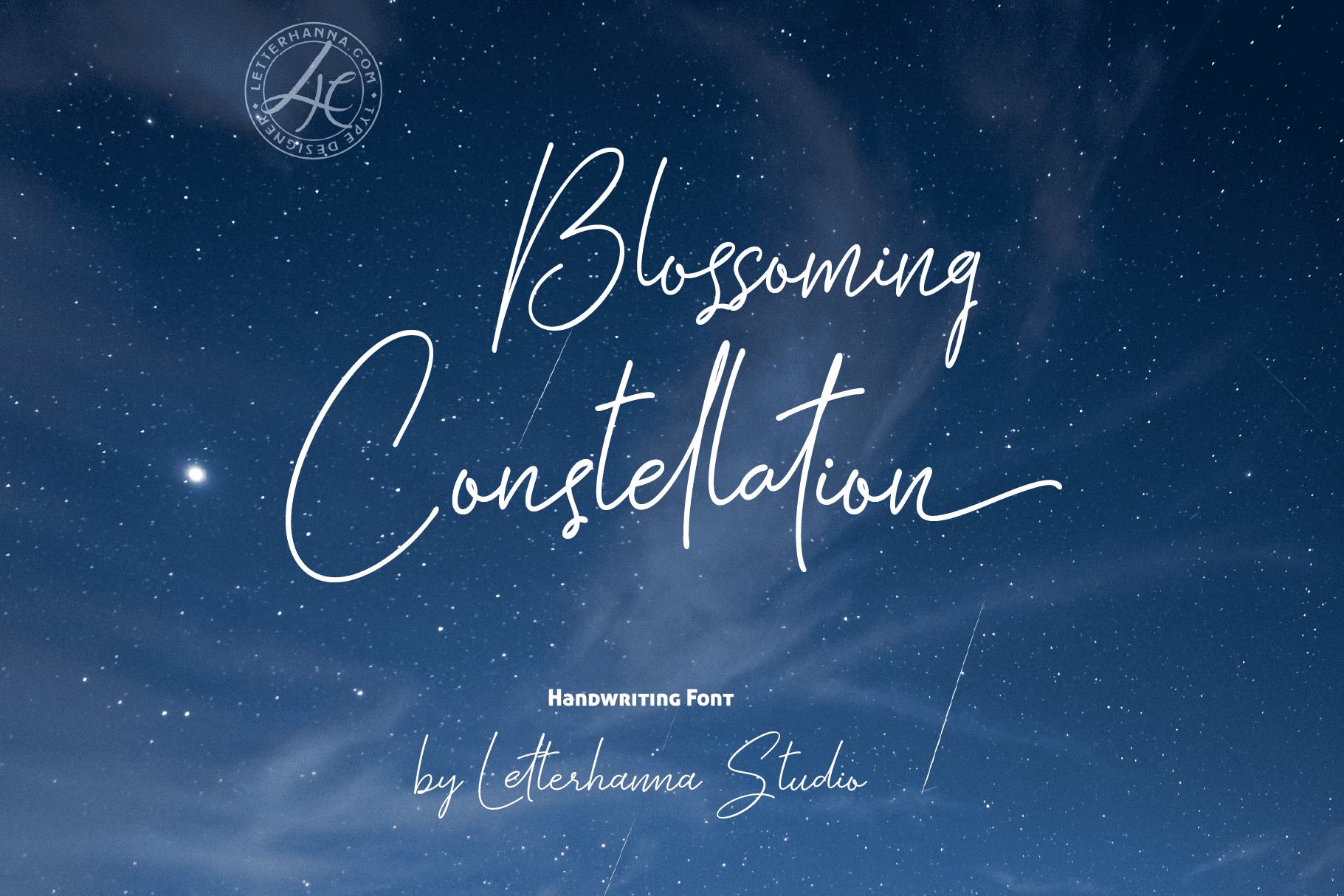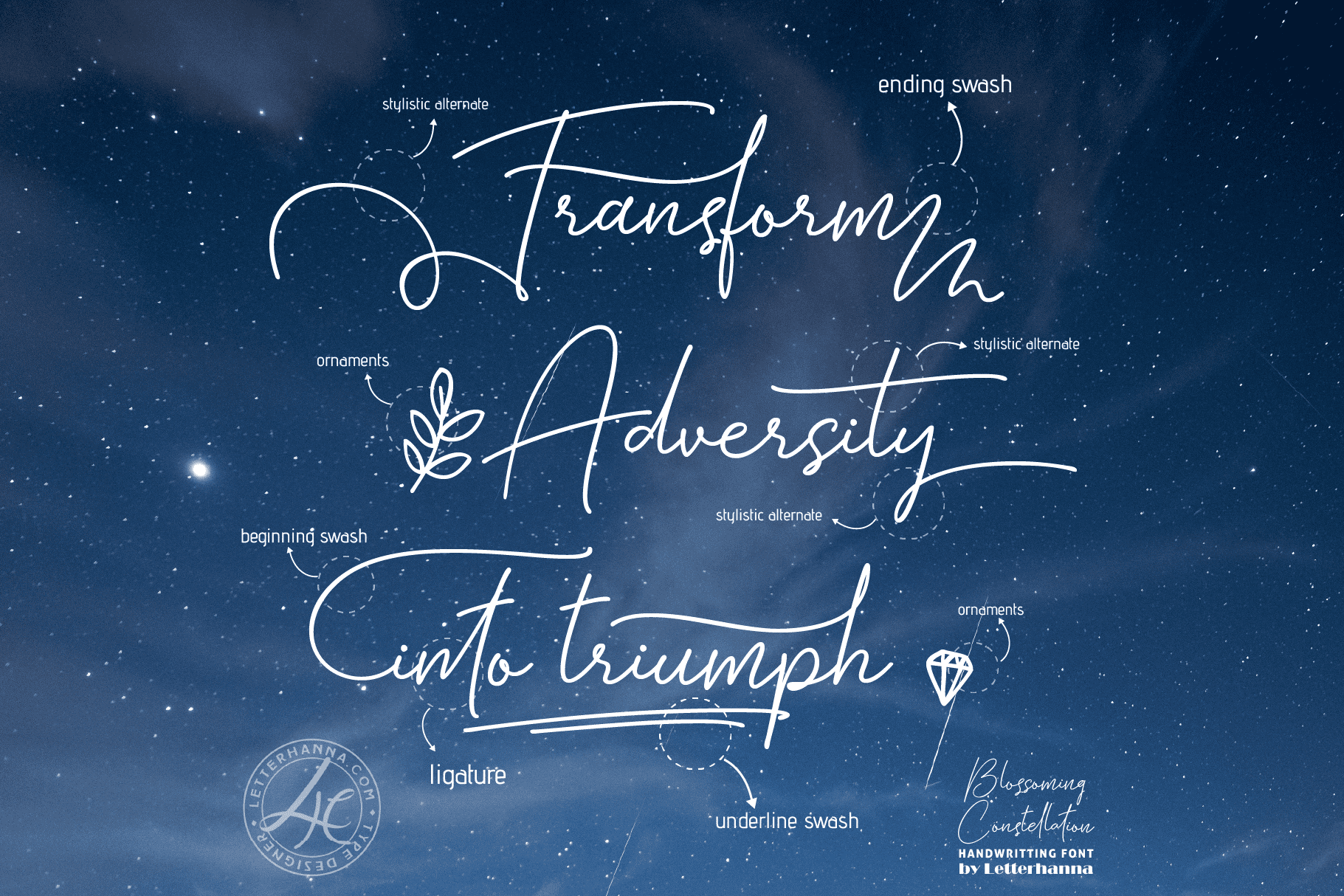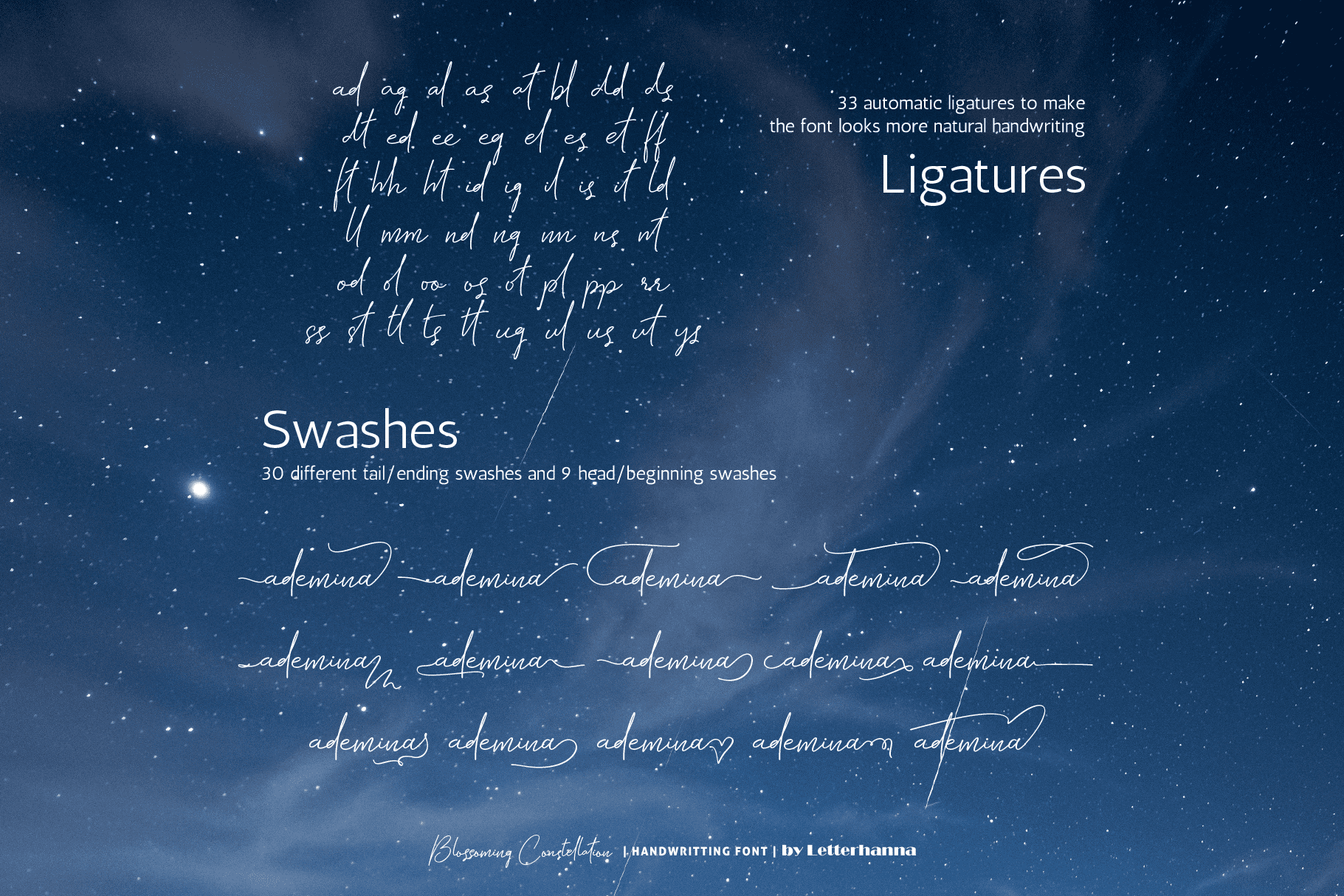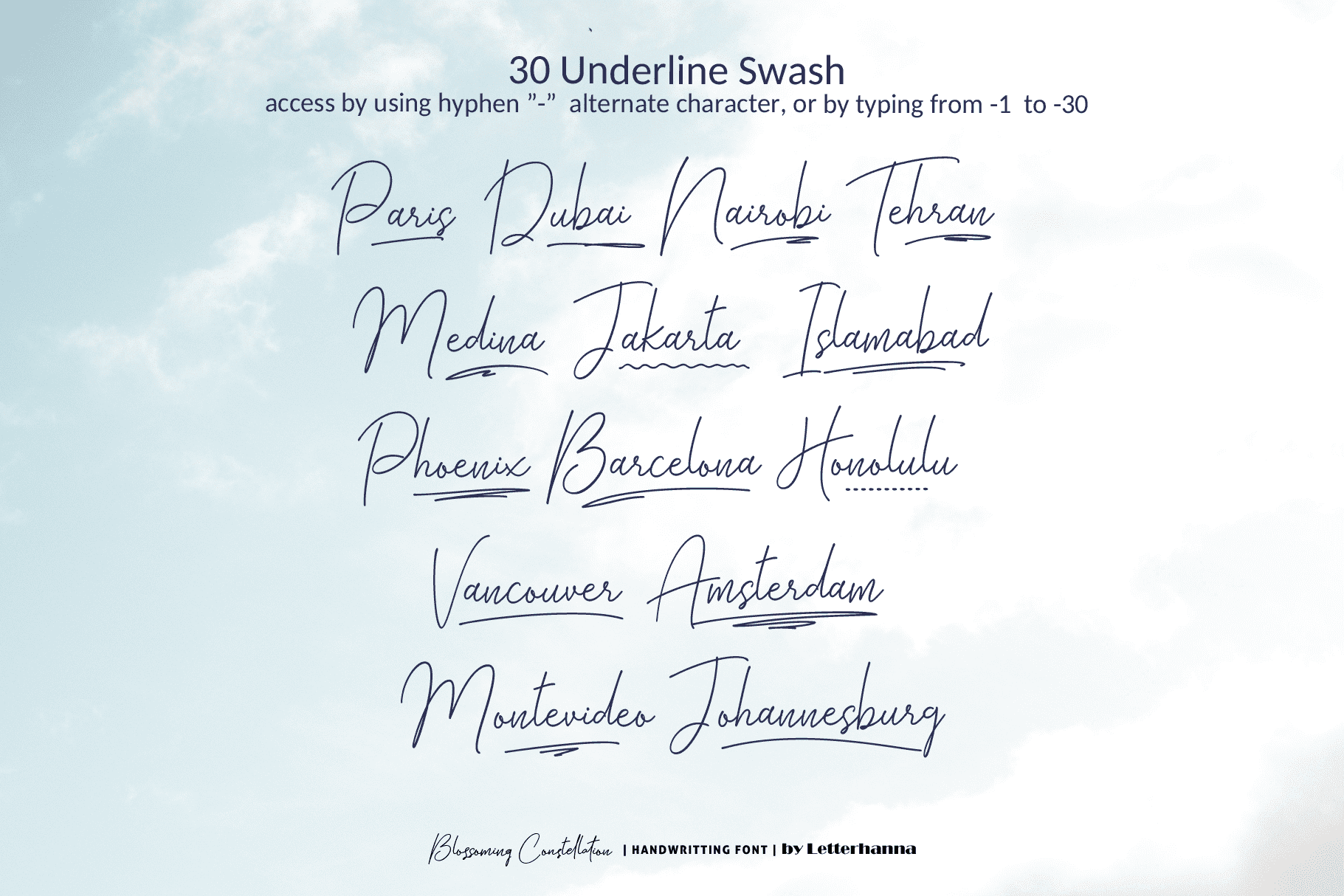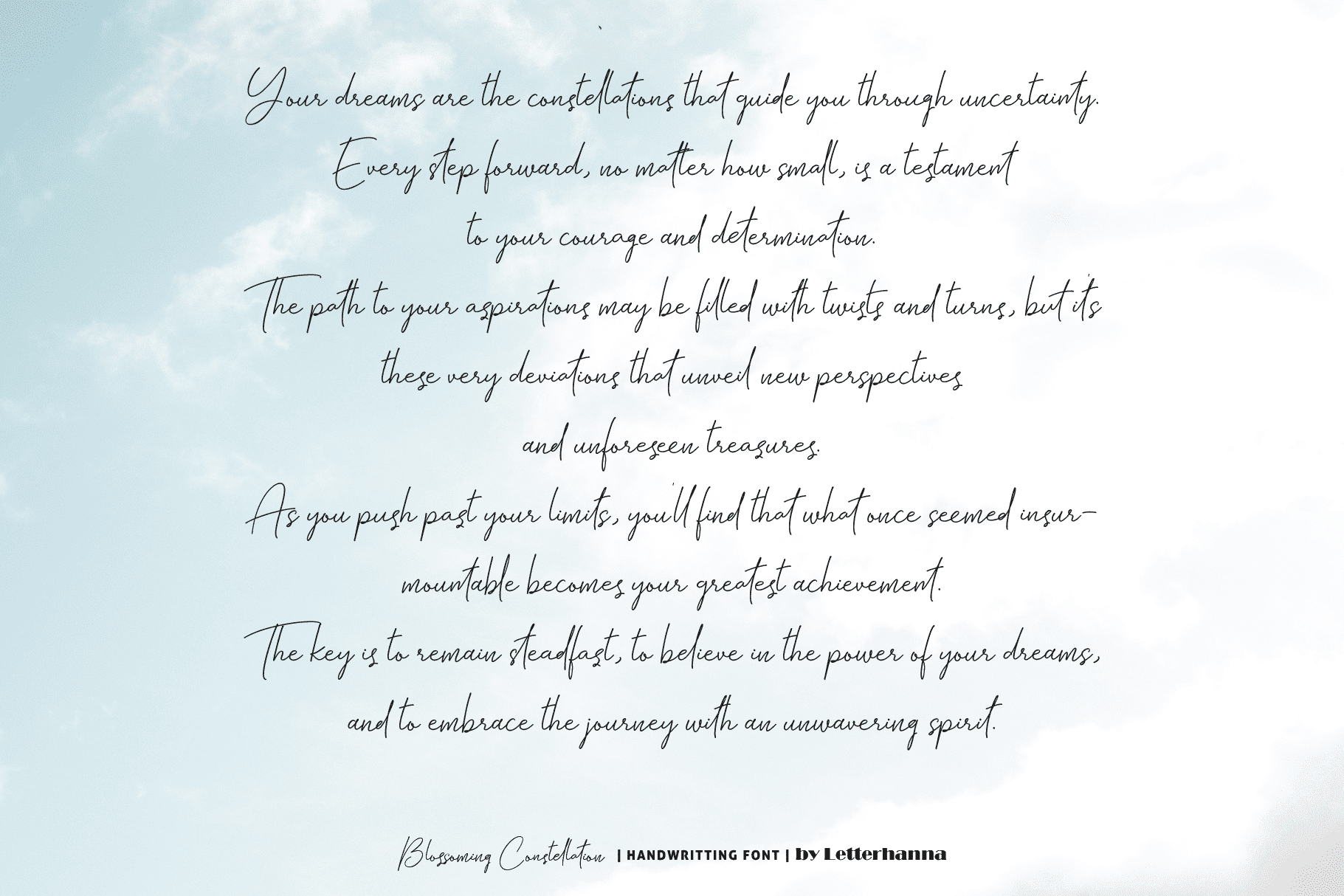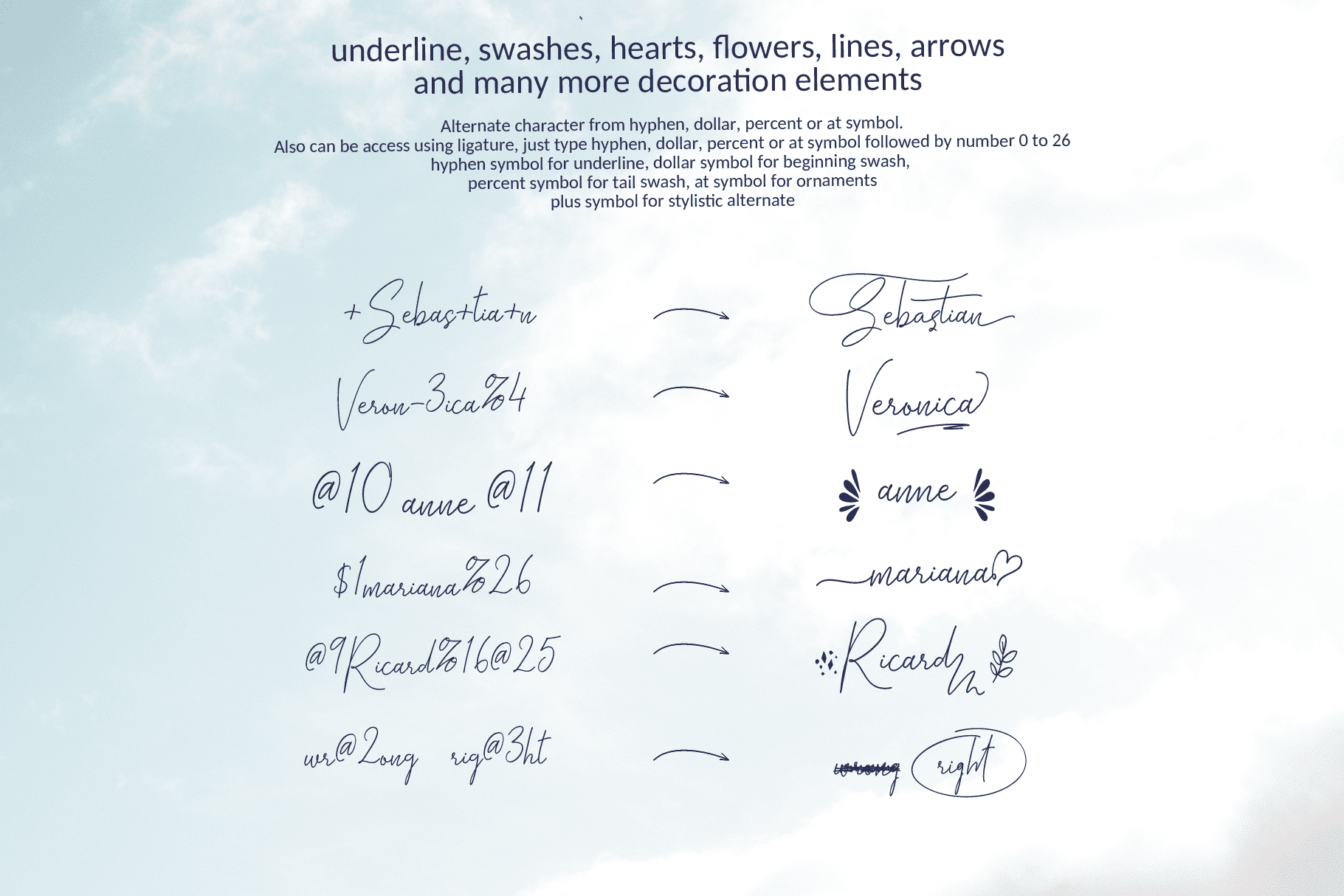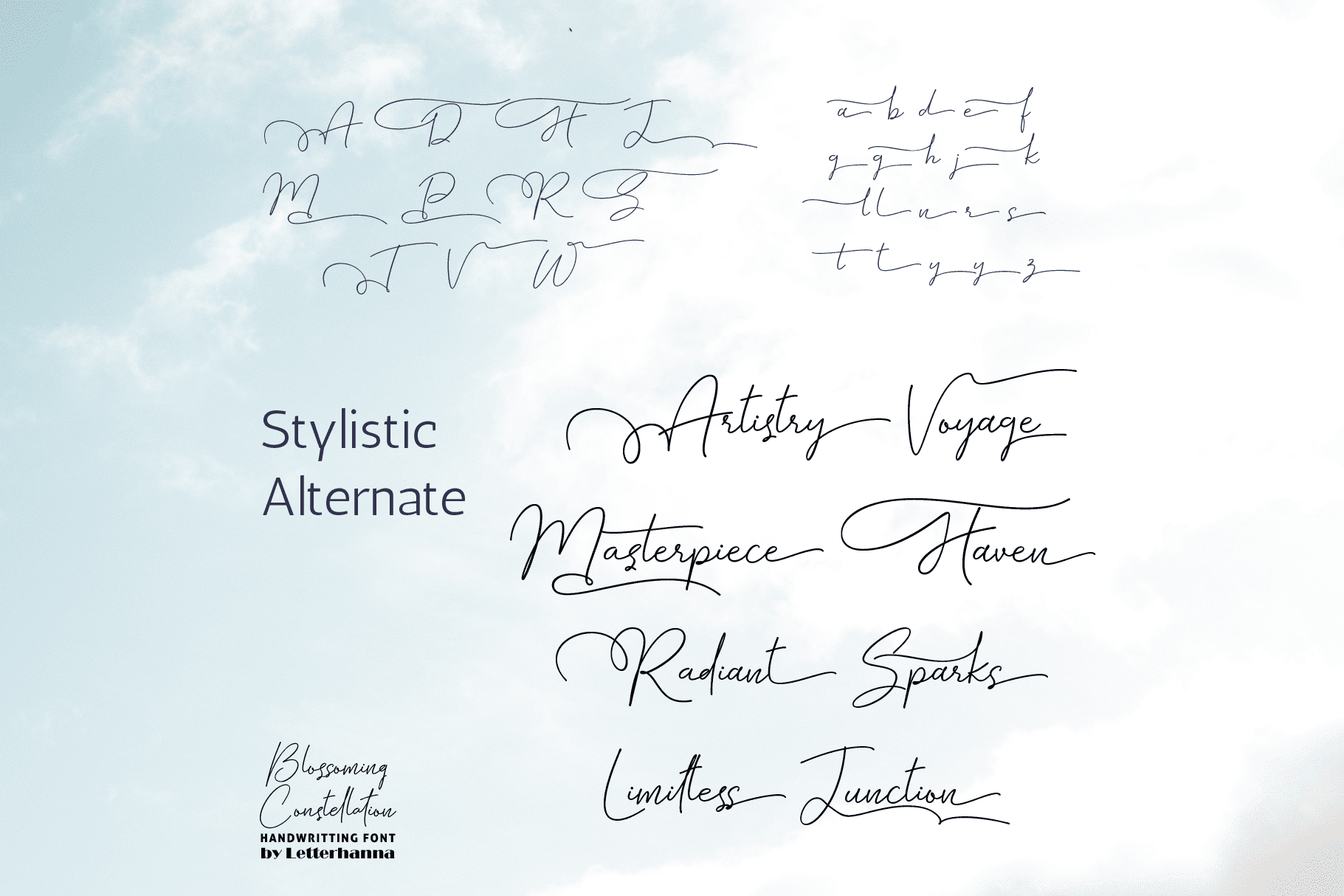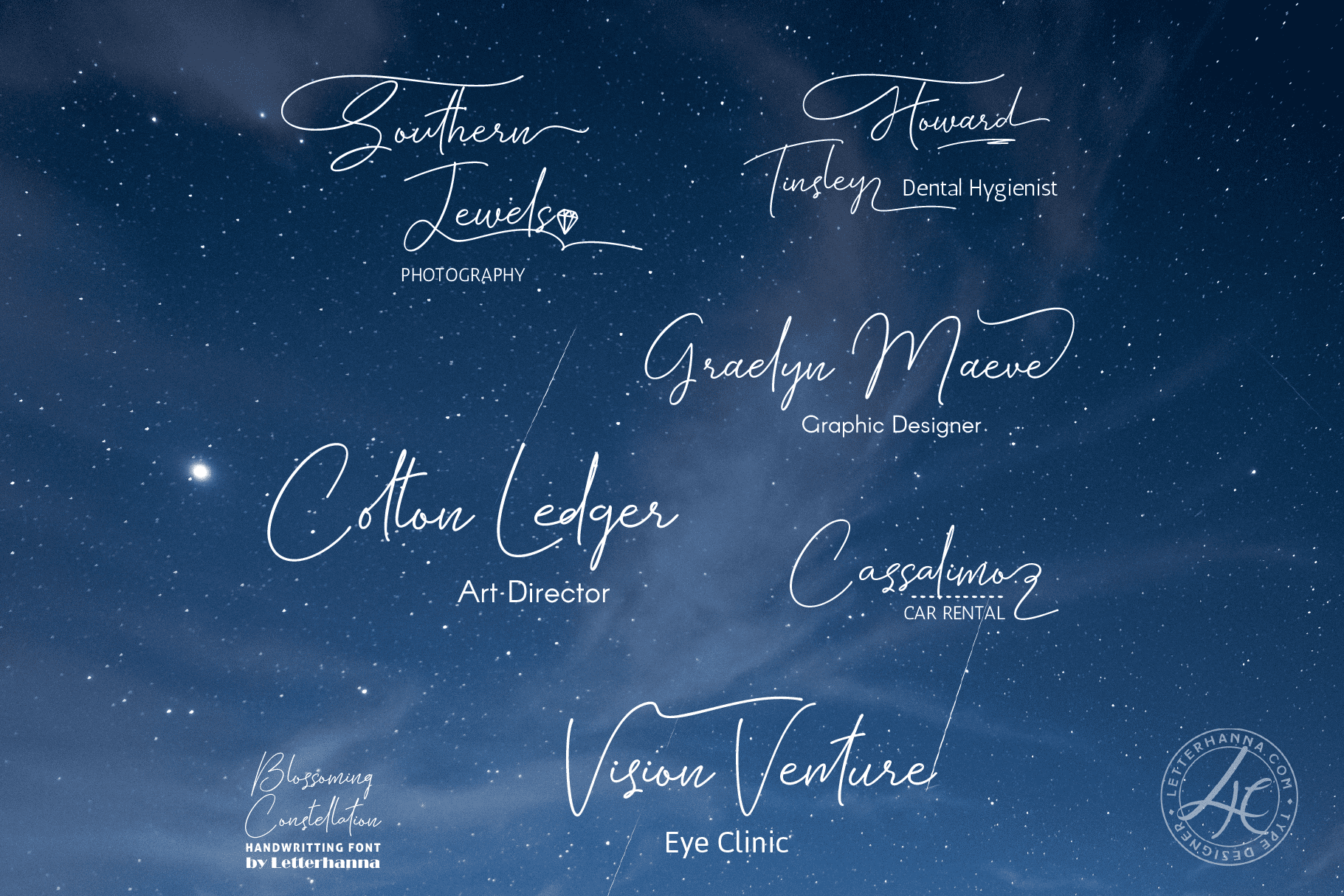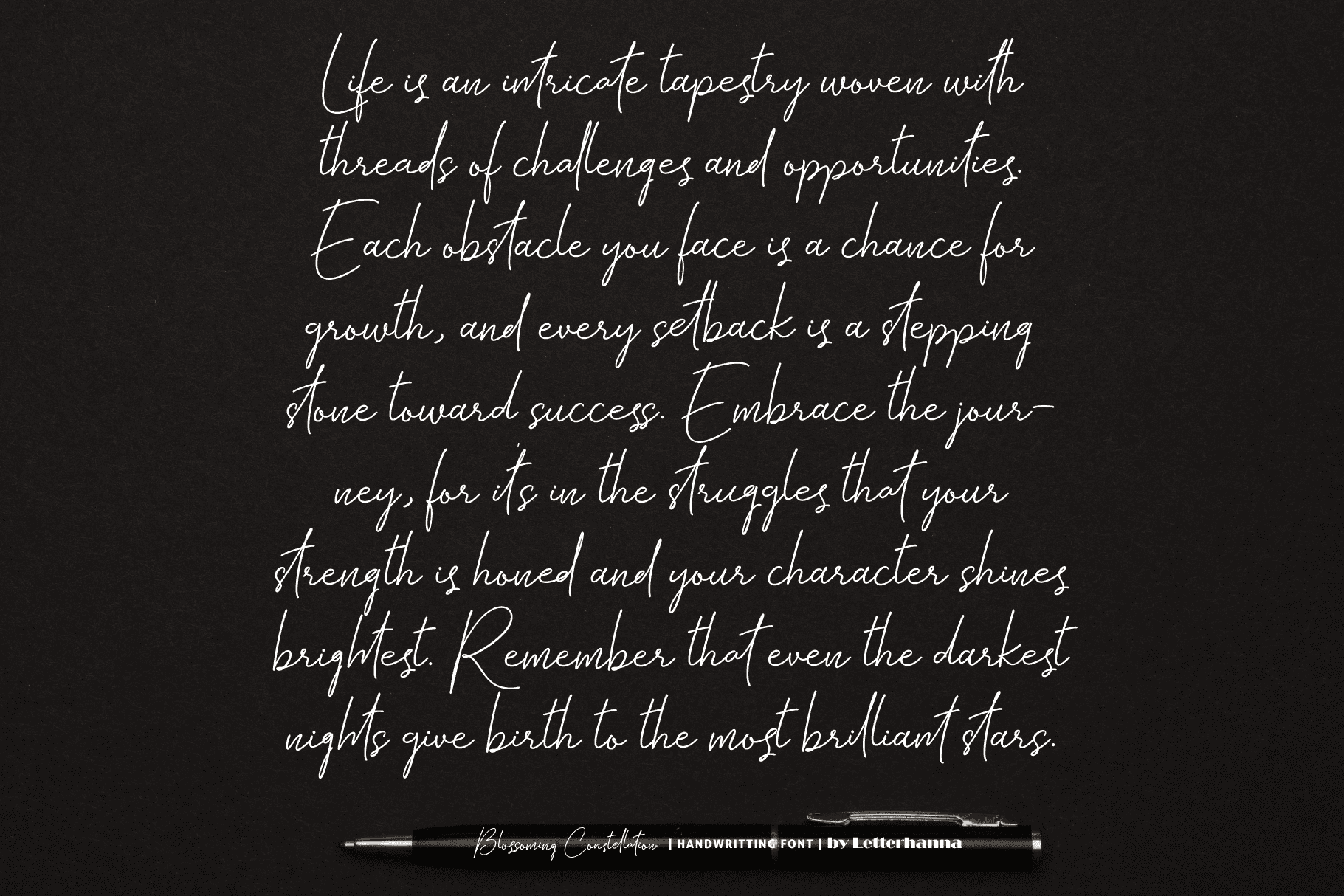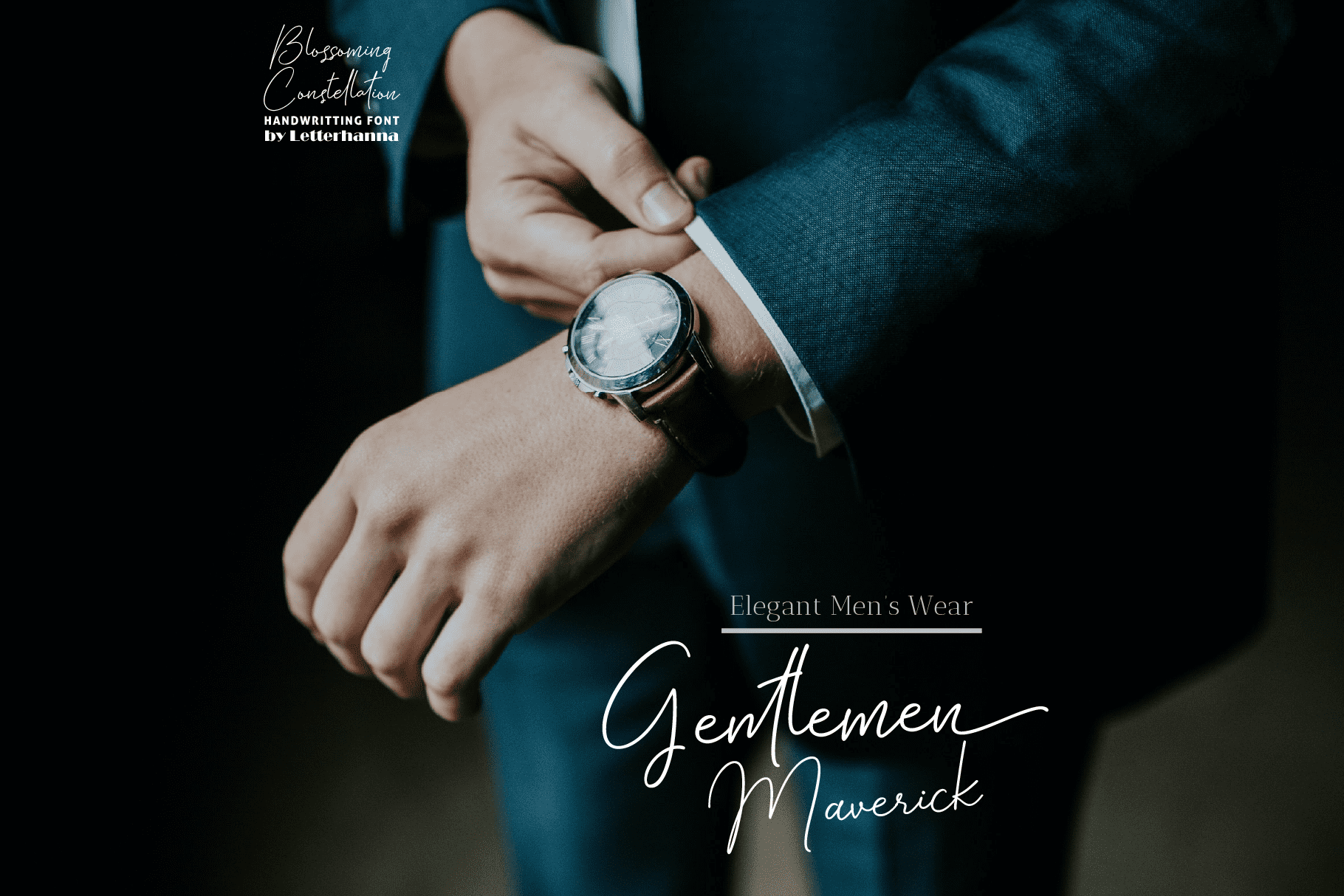
Introducing “Blossoming Constellation,” a free-spirited handwritten font that gracefully weaves the celestial allure of constellations with the untamed beauty of blossoming flowers. Each letter in this font carries the essence of a wandering spirit, capturing the whimsy and wonder of the universe. With its flowing lines and delicate details, “Blossoming Constellation” invites you to express your creativity with the boundless freedom of a free spirit. Whether used for artistic projects, personal messages, or branding, let this font guide your imagination on a journey where every stroke is a testament to the limitless possibilities of creativity and self-expression.
Blossoming Constellation Font was created to look as close to a natural handwritten script as possible by including over 50 natural-looking opentype ligatures, Uppercase and lowercase Stylistic Alternate, a lot of head/beginning swashes and tail/ending swashes. There are also 30 underline swashes included and lot more ornaments, arrow, scribbles, etc.
Stylistic alternate can be access by type plus symbol “+” in front of the original letter, for example type +A to get stylistic alternate of letter A capital.
Underline swashes can be access by type hyphen symbol “-” then followed by number 1 to 30, for example type -3, -22 or -17 etc to get various different underline swashes.
Head/beginning swashes can be access by type dollar symbol “$” then followed by number 1 to 9, for example type $2 or $8 to get various different head/beginning swashes.
Tail/ending swashes can be access by type percent symbol “%” then followed by number 1 to 30, for example type %3 or %15 etc to get various different tail/ending swashes.
Ornaments can be access by type at symbol “at” then followed by number 1 to 26, for example type @4 or @13 etc to get various different ornaments.
– Uppercase and Lowercase letters
– Numbering and Punctuations
– Multilingual Support
– 50 Ligatures
– Beginning and ending swashes
– Underline swashes
– Stylistic alternate
– Ornaments
– Easy access swash just by using ligatures